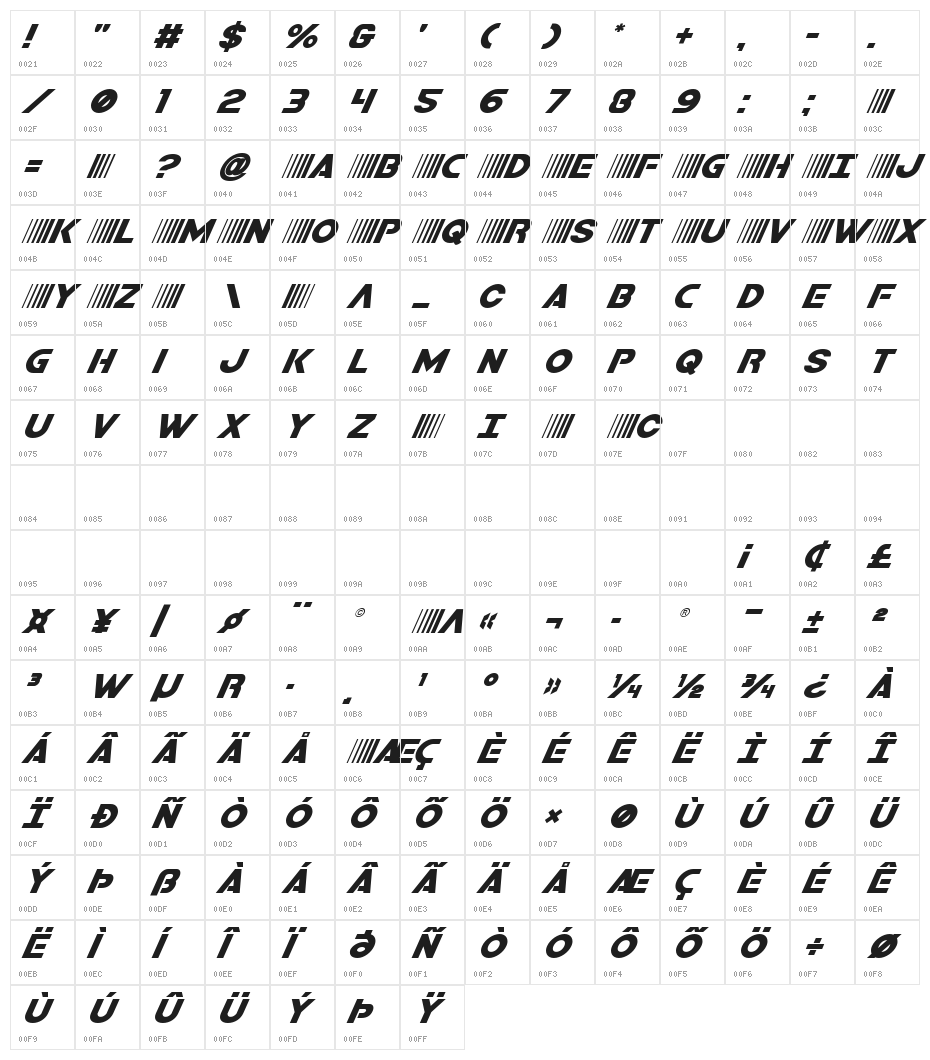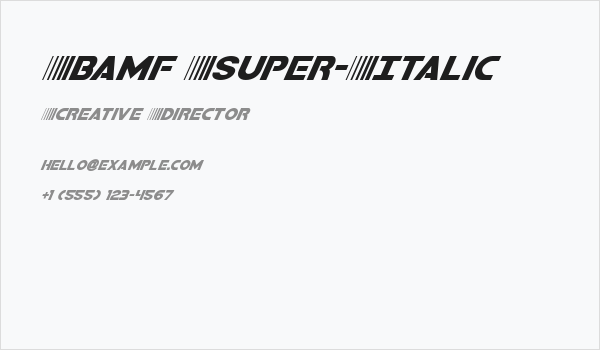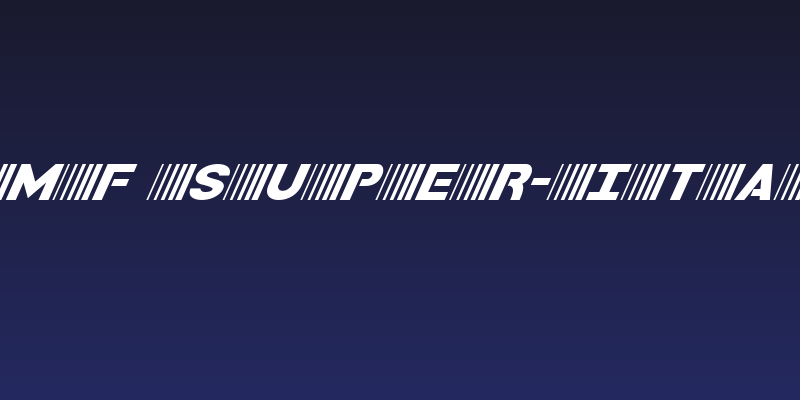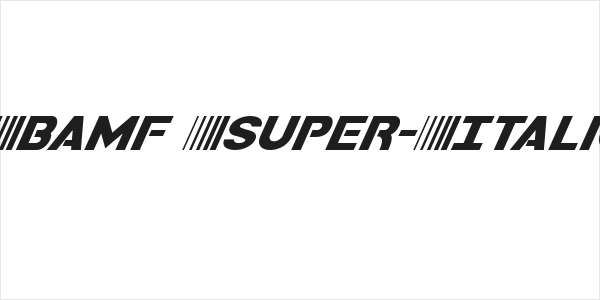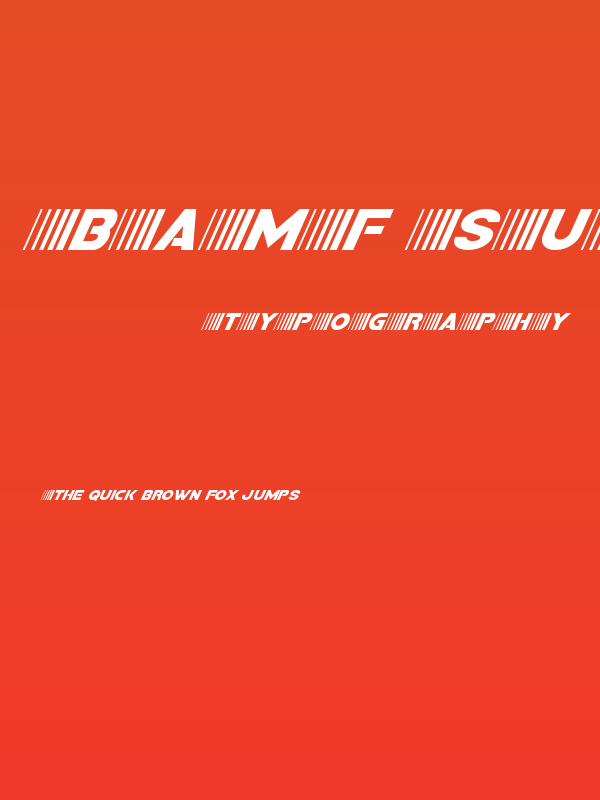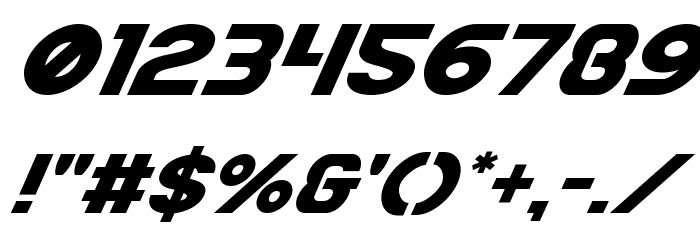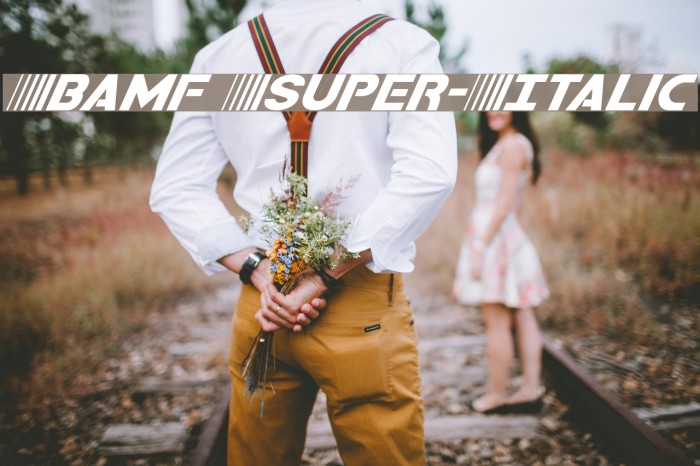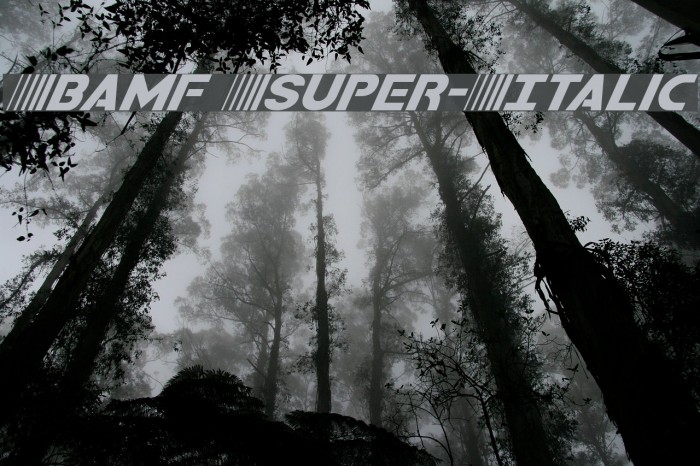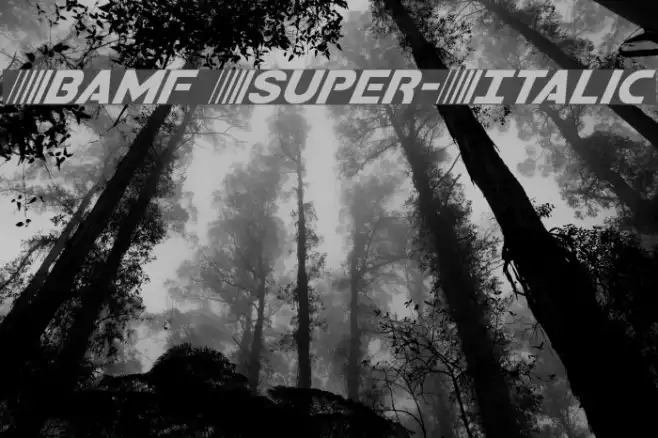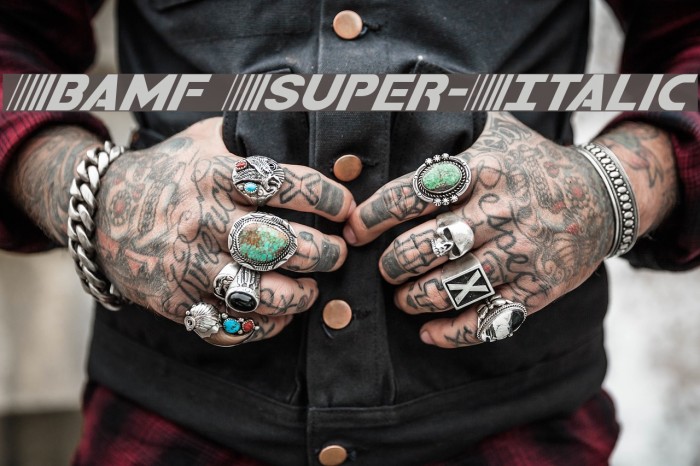
Bamf Super-Italic Font
Bamf Super-Italic Description
This font features a dynamic and bold italic style, characterized by its strong diagonal emphasis and thick strokes. The uppercase letters are particularly striking, with a forward-leaning posture that suggests movement and energy. The numerals and special characters maintain this boldness, ensuring consistency across all glyphs. The font's design is modern and assertive, making it ideal for projects that require a strong visual impact. Its unique style is both eye-catching and memorable, suitable for a variety of creative applications.
| Proposed Projects | Ideal for sports branding, action movie posters, dynamic logos, and advertising campaigns that require a strong visual presence. |